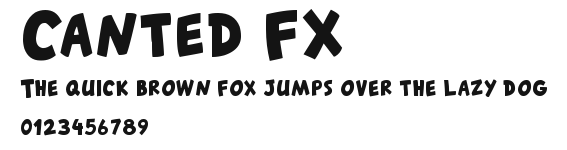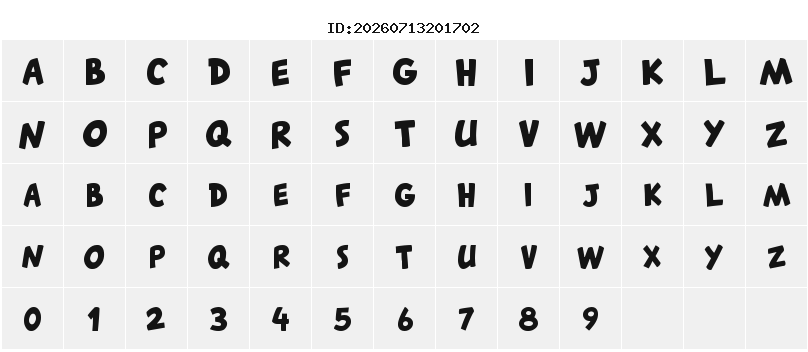
• Font Name: Canted FX
• Full Font Name: Canted FX Bold
• Designer: Nils Cordes
About Canted FX.ttf
Canted FX.ttf is a modern, elegant sans-serif font designed for ultimate readability and visual harmony. Perfect for branding, headlines, web design, and print materials.